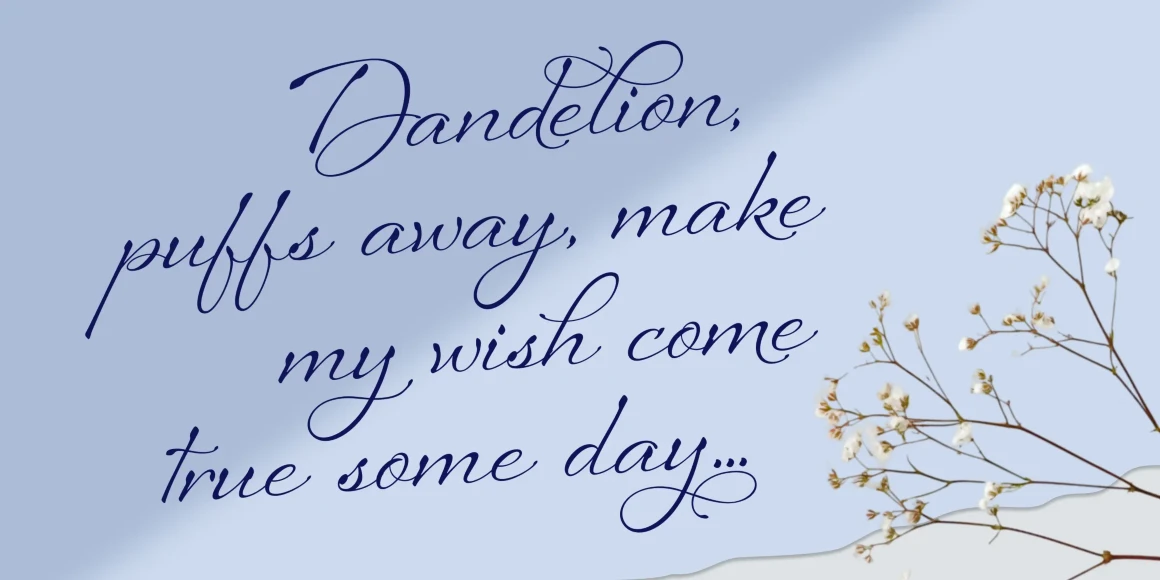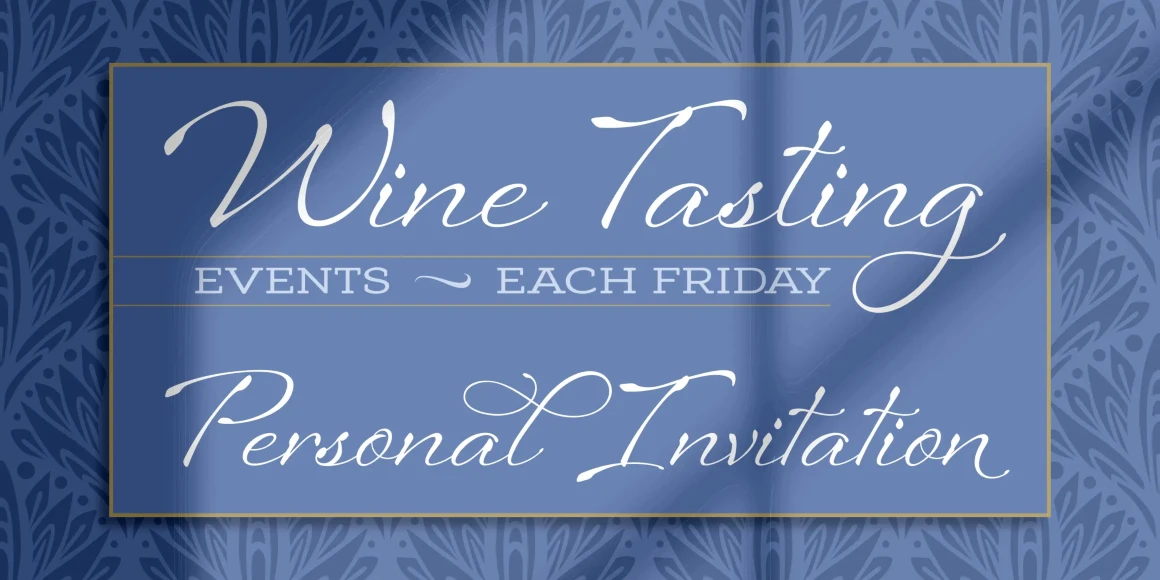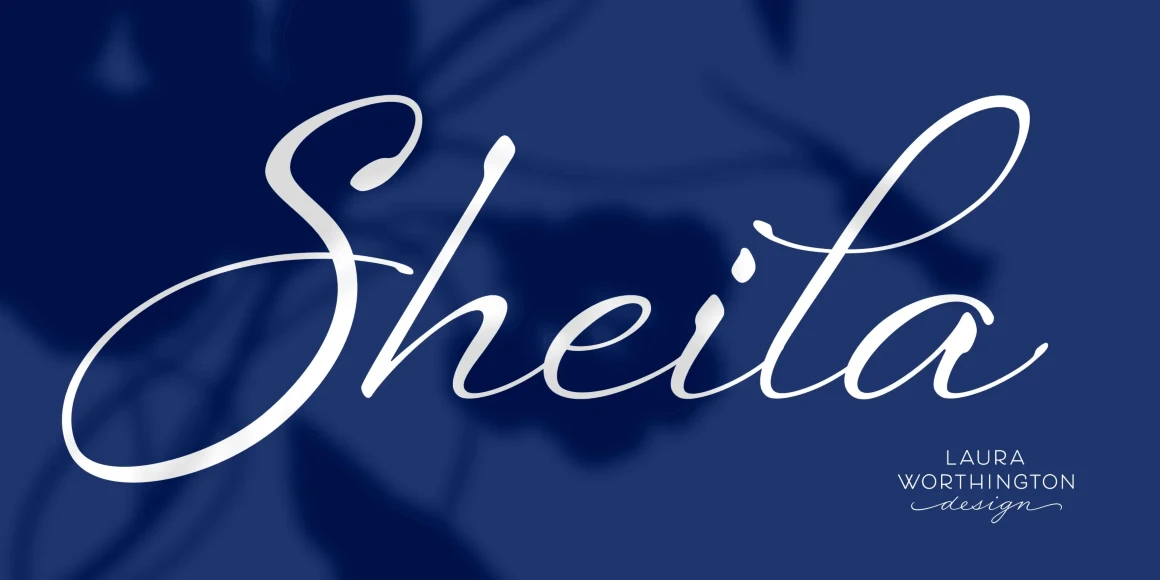
Sheila Regular
Sheila Bold
Sheila
Sheila strikes the perfect balance of casual handwriting and careful calligraphy, making it both approachable and aspirational. Sheila’s airy, breezy letterforms shine in friendly or feminine settings like inspirational quotes and fashion layouts. Contextual alternates and ligatures lend Sheila natural-looking connections, while 35 swash forms add distinctive flair.
OpenType Features
- Common Ligatures
- Stylistic Alternates
- Stylistic Sets